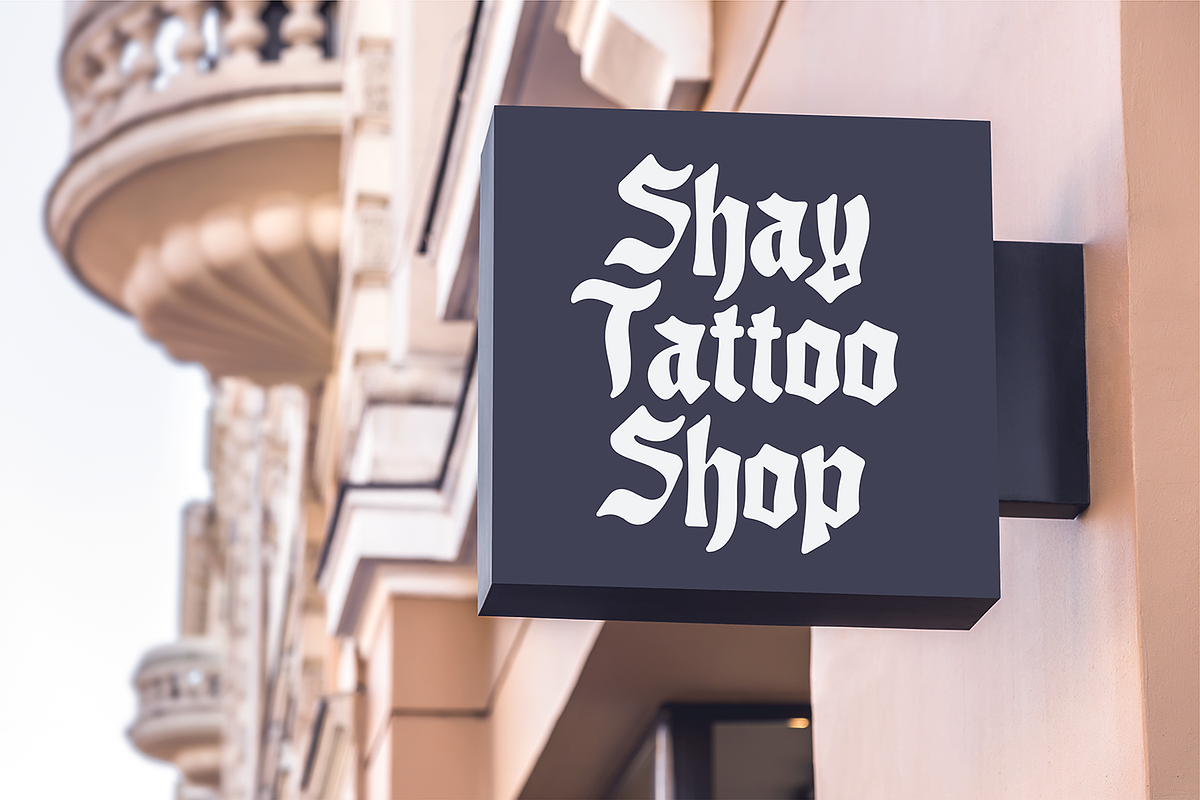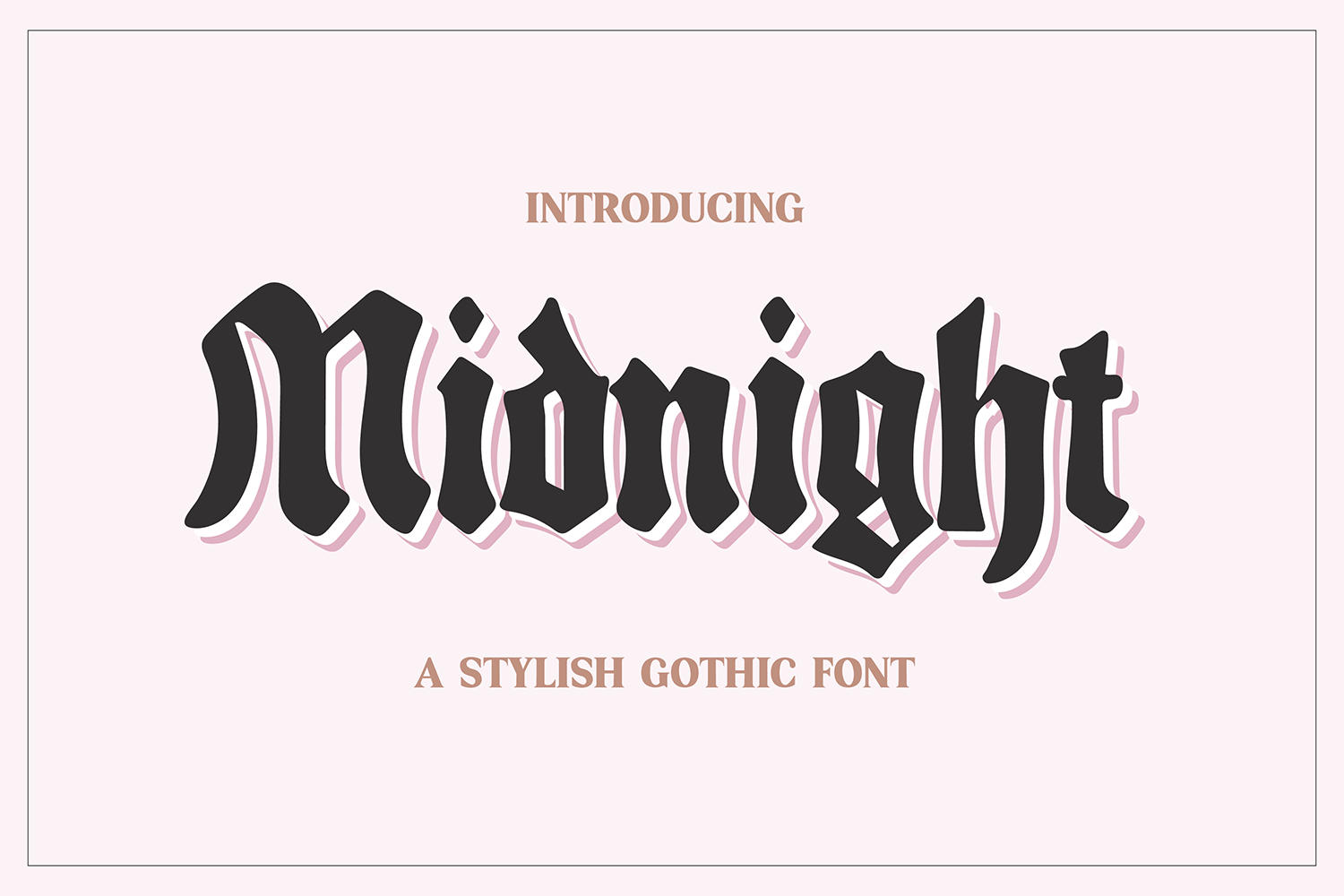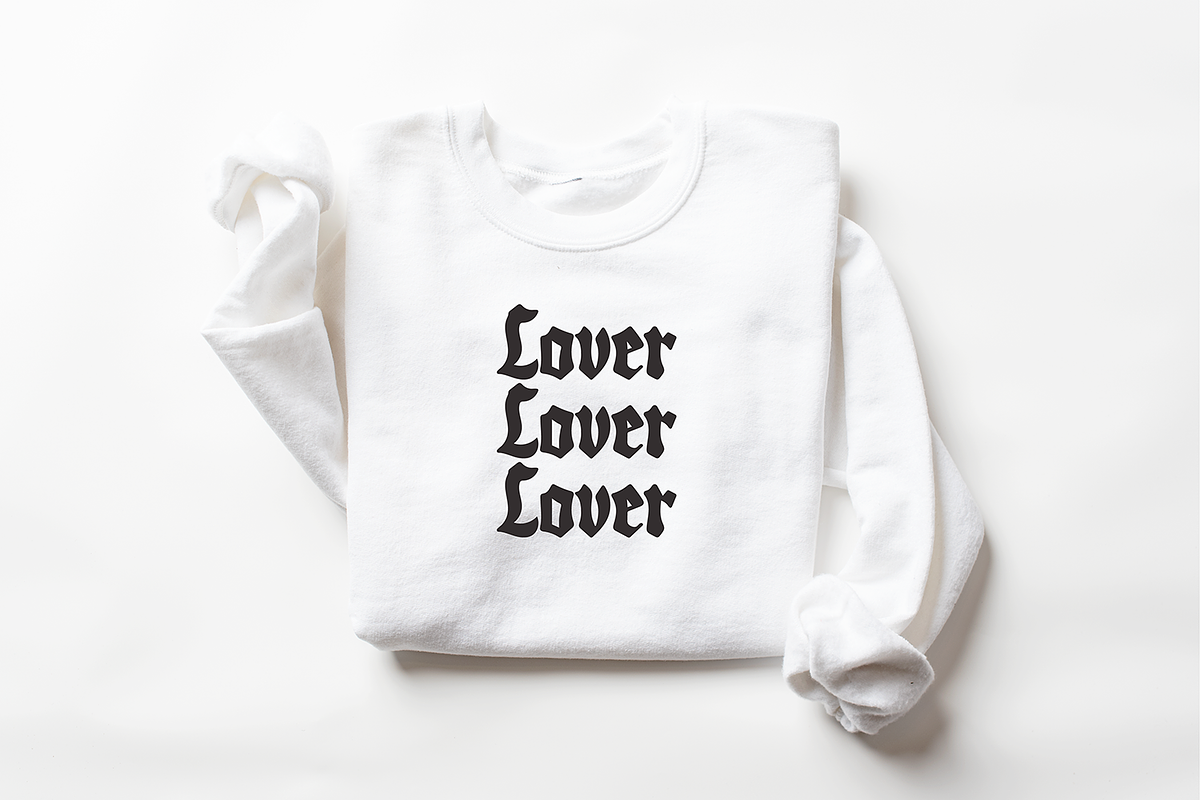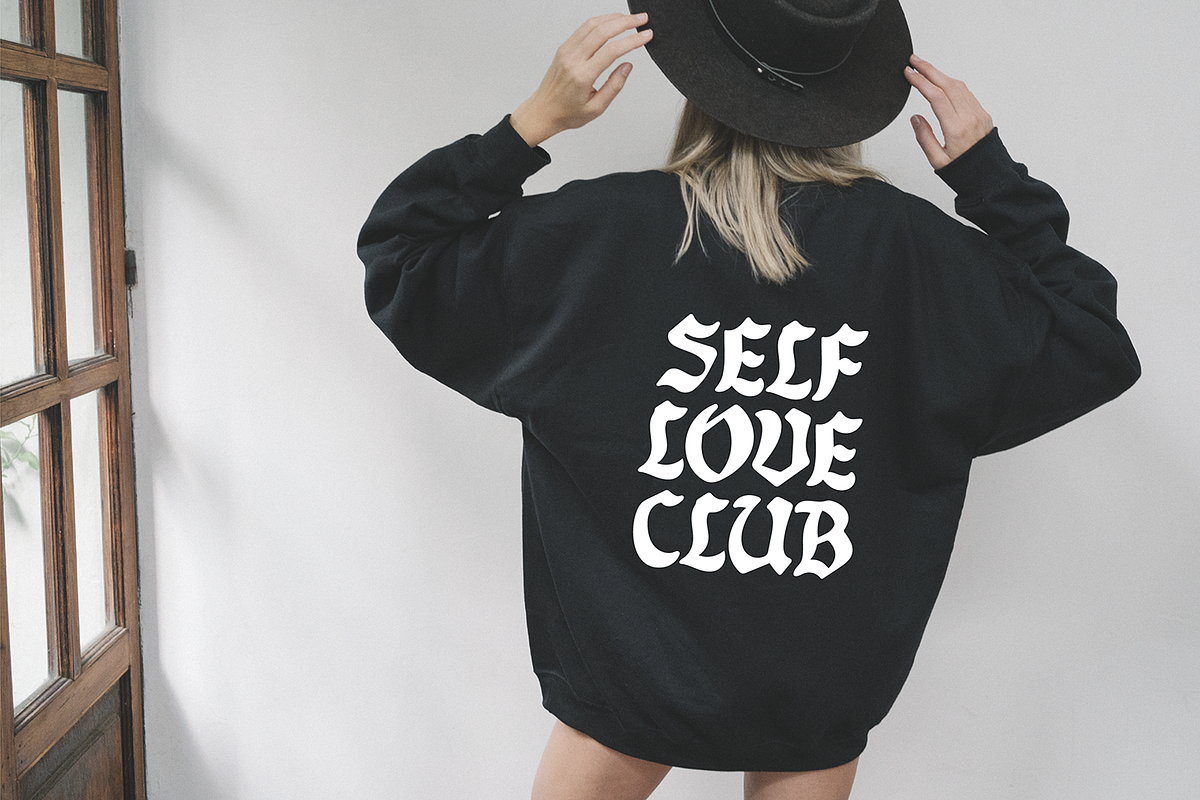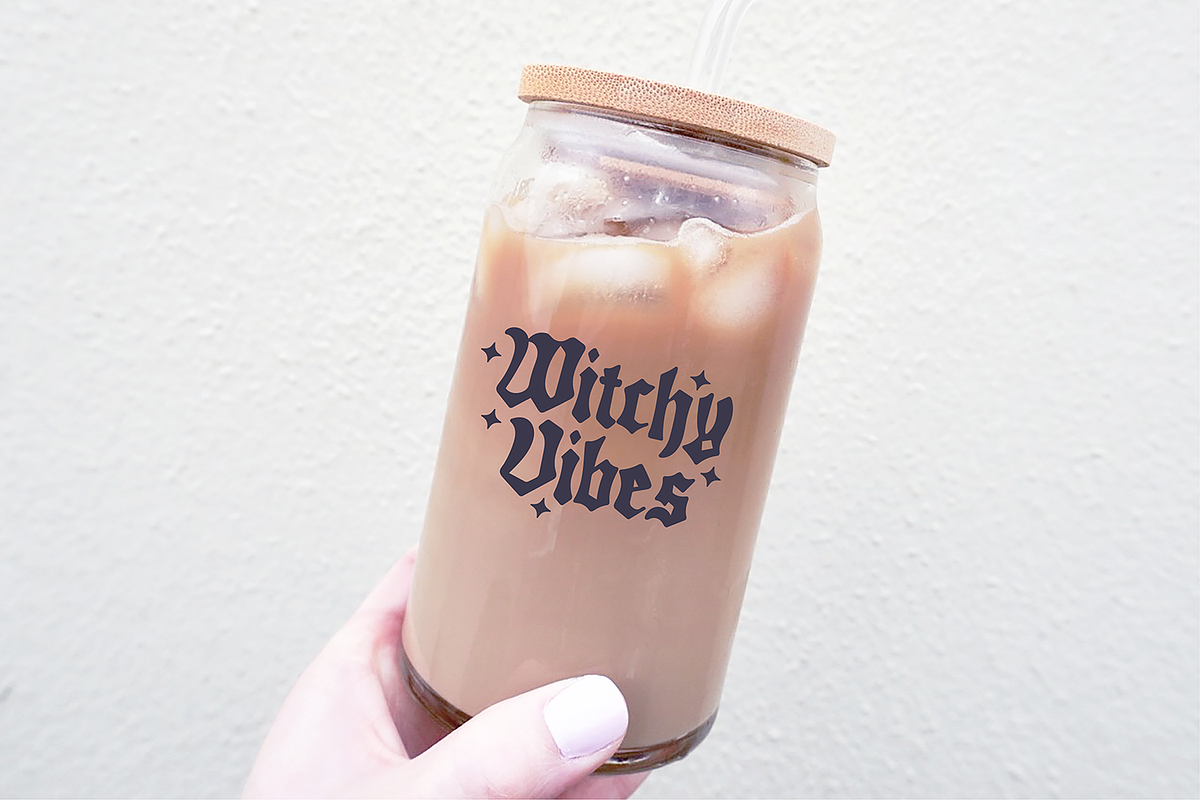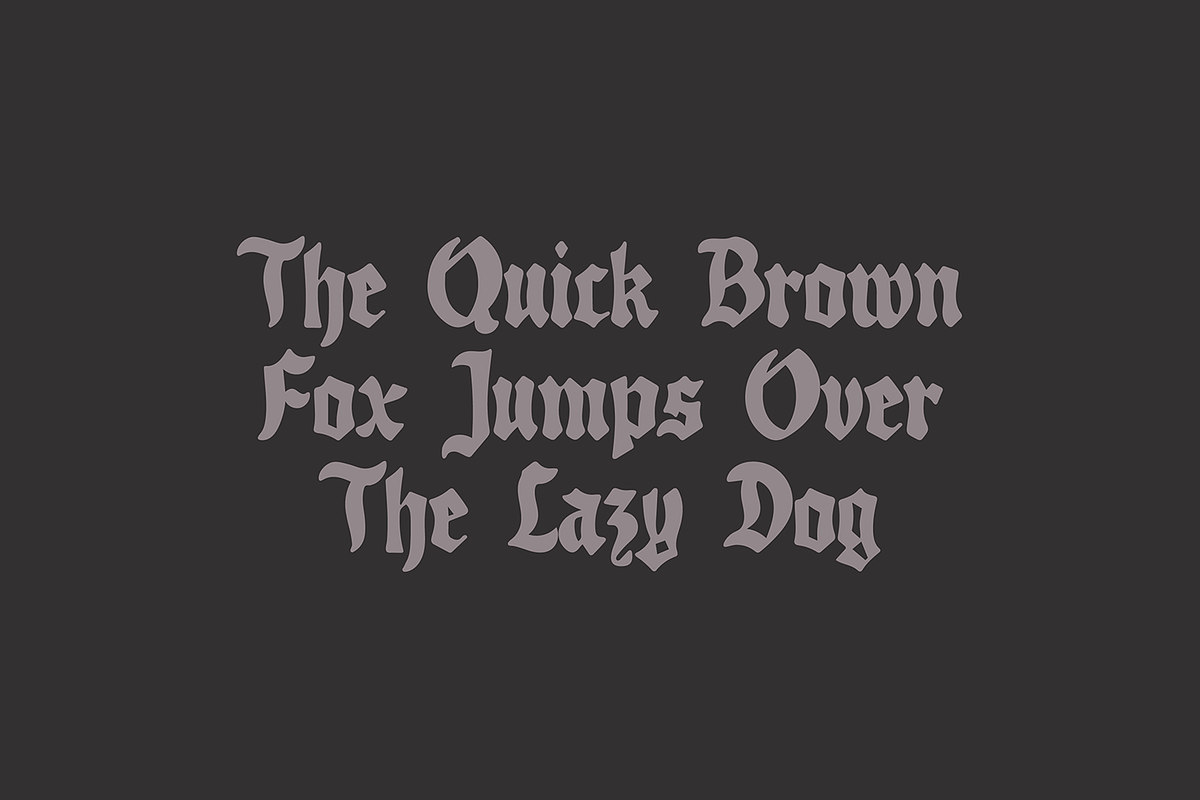
MIDNIGHT Stylish Gothic Font
"MIDNIGHT" a bold and stylish gothic-style font
This font is a hand-drawn blackletter font that is perfect for social media or crafty projects. Use if for branding, crafts for decor, invitations, and more! Includes upper and lowercase glyphs, numbers, and punctuation.